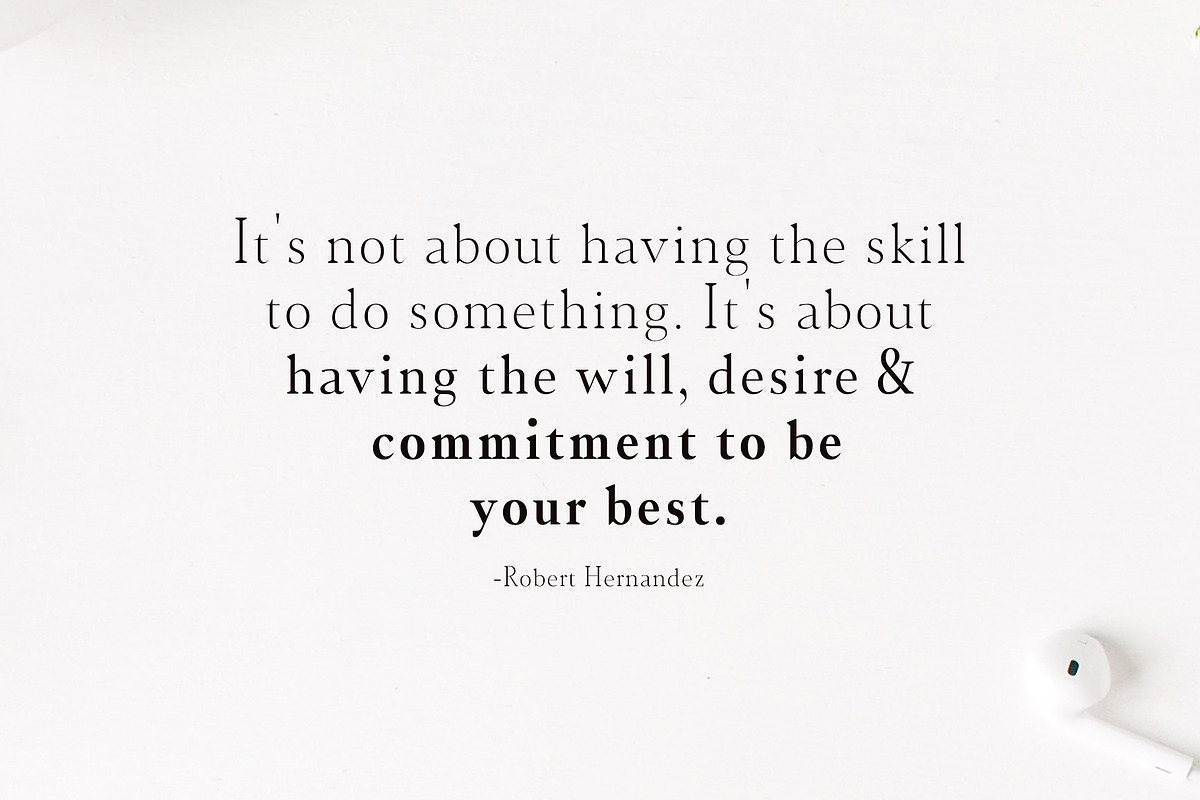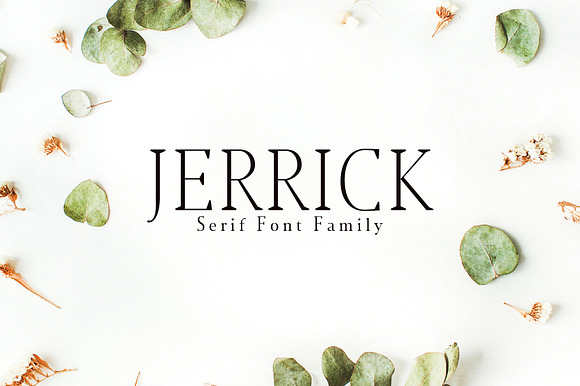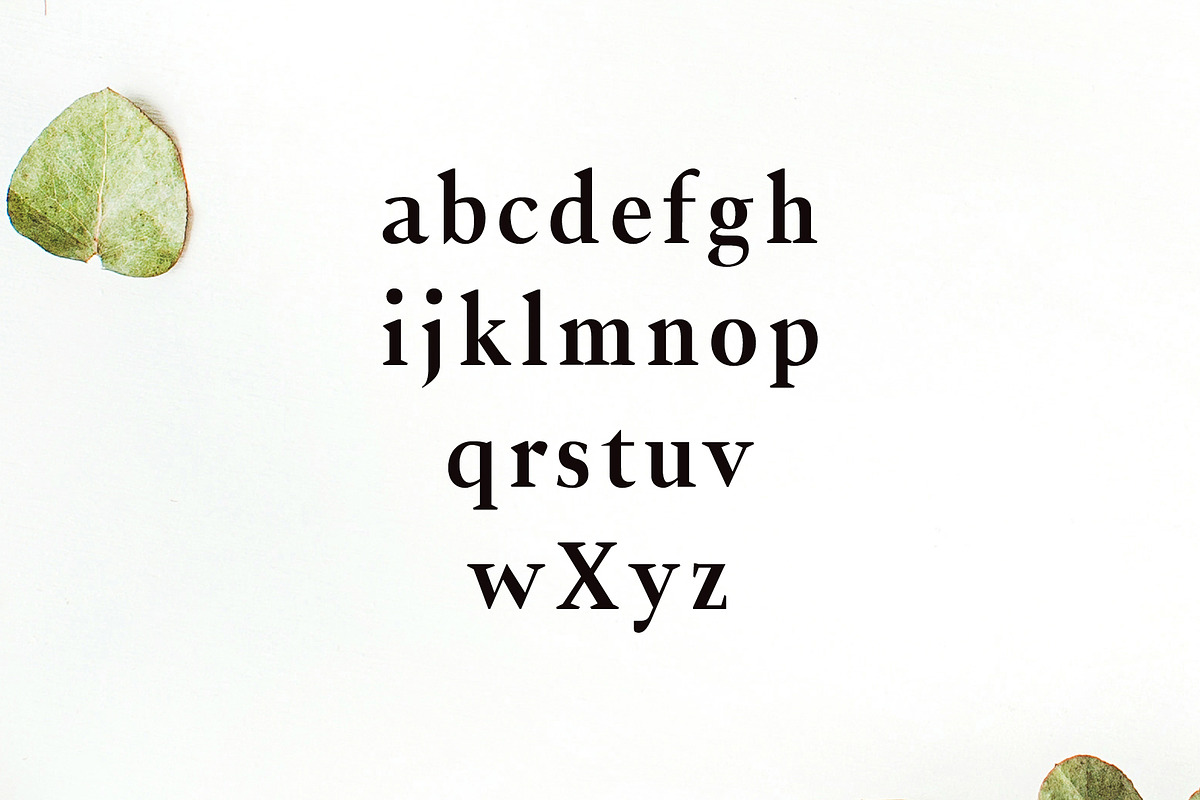
Jerrick Serif 6 Font Pack
Jerrick Serif 6 Font Family Pack features unique and modern serif look and feel. Perfect for gorgeous logos, titles, web layouts and branding. It looks gorgeous in all caps with a wide-set spacing if you want to try a classy look, or beautiful on its own in capital and lowercase letters for something completely timeless.
Font Weight: Regular, Light, Bold, Distorted and Italics
Jerrick Font Features: